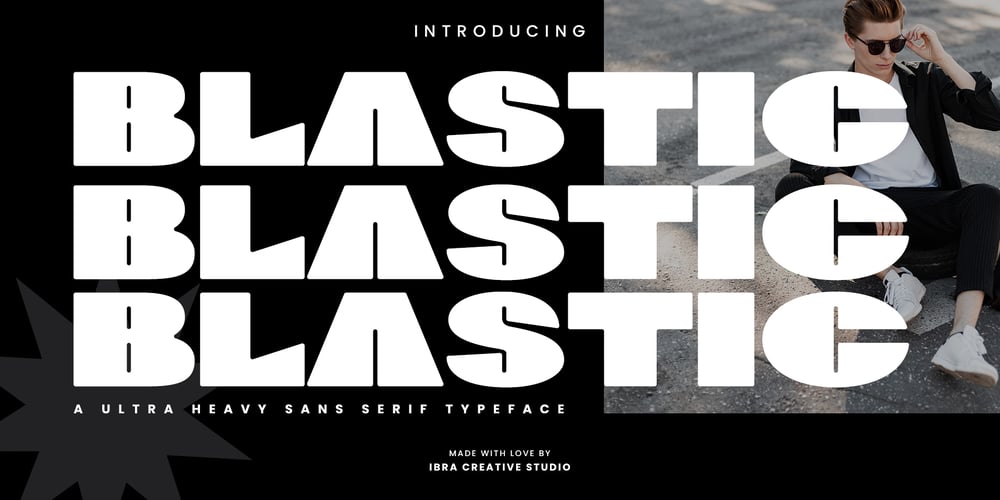
Blastic Font Family was designed by Roisatul Azizah and published by IbraCreative. Blastic contains 1 styles and family package options. Blastic – An Ultra Heavy Sans Serif Typeface Blastic, an ultra-heavy sans-serif typeface, commands attention with its bold and robust appearance. Each letter in Blastic is characterized by thick strokes and strong, angular lines, conveying a sense of power and authority. Ideal for making a bold statement in headlines, posters, and branding materials, Blastic exudes confidence and strength, leaving a lasting impression on viewers with its impactful design. Blastic is perfect for branding projects, logo, wedding designs, social media posts, advertisements, product packaging, product designs, label, photography, watermark, invitation, stationery, game, fashion and any projects.Fonts include multilingual support for; Afrikaans, Albanian, Czech, Danish, Dutch, English, Estonian, Finnish, French, German, Hungarian, Italian, Latvian, Lithuanian, Norwegian, Polish, Portuguese, Slovak, Slovenian, Spanish, Swedish.